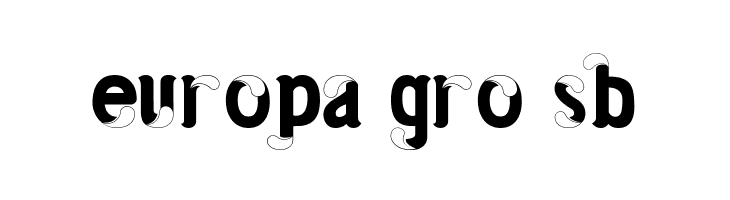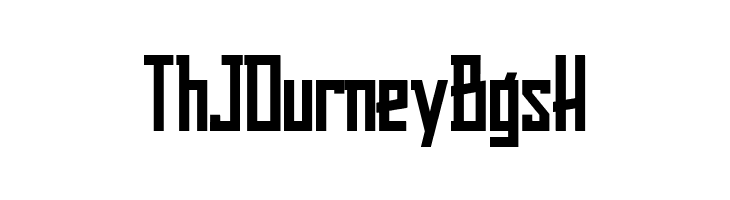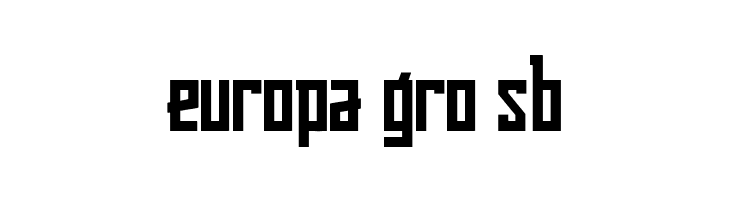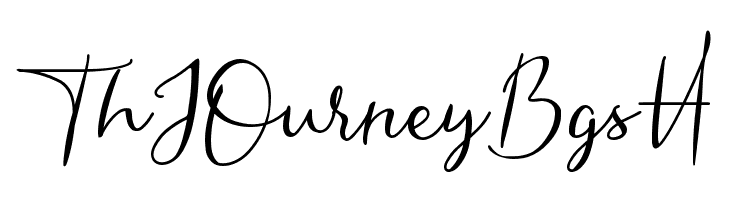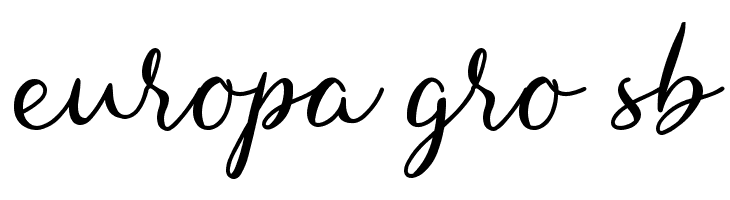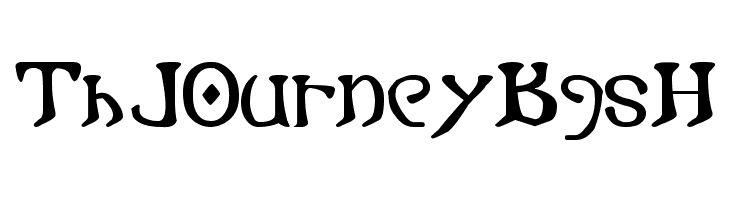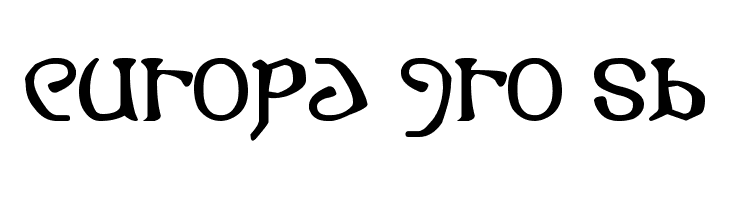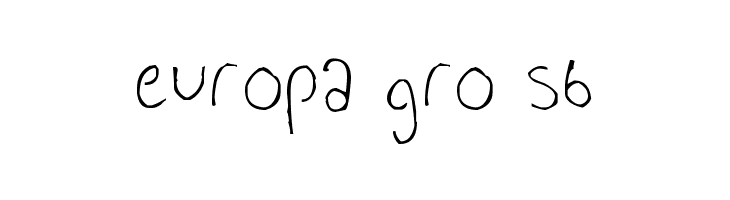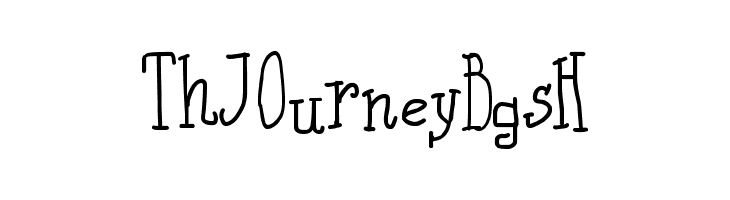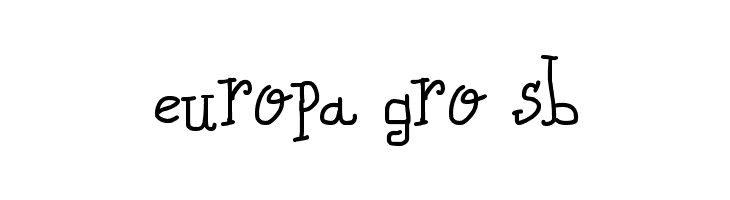
• Horses 1
Silhouette pictogram font featuring horses and equestrian scenes.
• hot chili
A bold, playful font with decorative swirls and curls.
• Hot Legend Team DEMO
A bold, vintage serif font with decorative elements and shadow effects.
• HotBone
A playful, hand-drawn font with irregular, organic shapes and varying stroke thickness.
• Hungaria DEMO
A dynamic and elegant script font with fluid, flowing letterforms.
• Husaeni
A bold, angular font with a modern, geometric style.
• i crashed into gothic
• i love you
A playful font with heart-shaped characters, perfect for romantic themes.
• I Wrote All
A playful, handwritten font with irregular strokes and a whimsical style.
• i-hearts